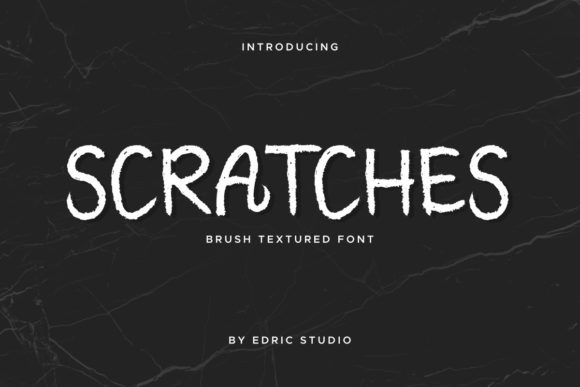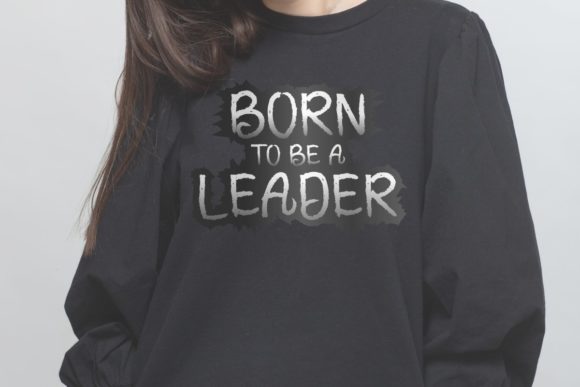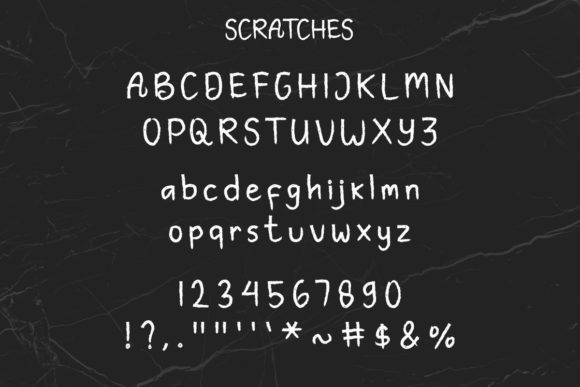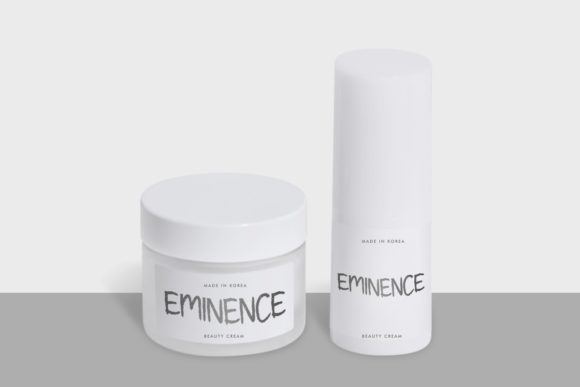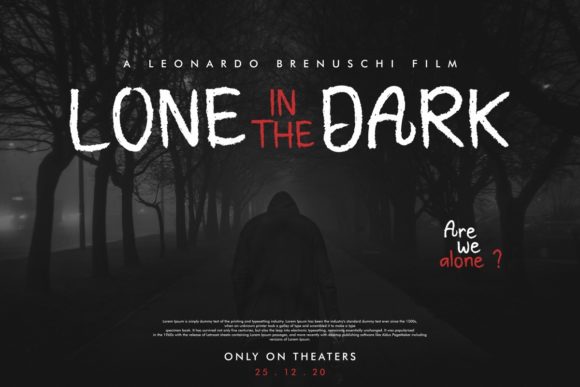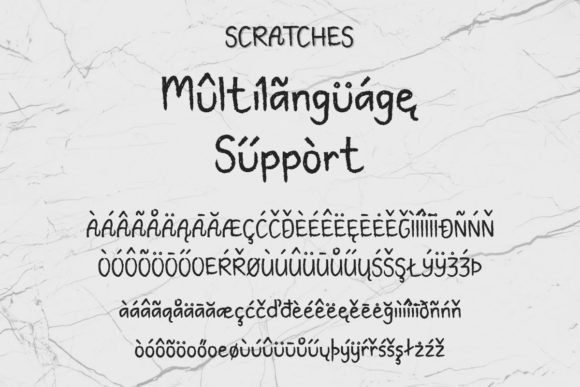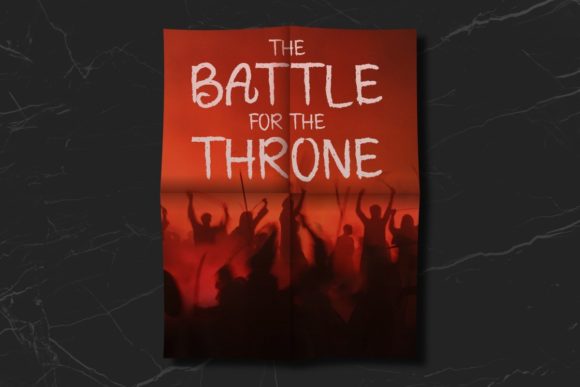
Scratches Font
About Scratches Font
Scratches is a cool, brushed and neat handwritten font. It can easily be matched to an incredibly large set of projects, so add it to your creative ideas and notice how it makes them stand out!